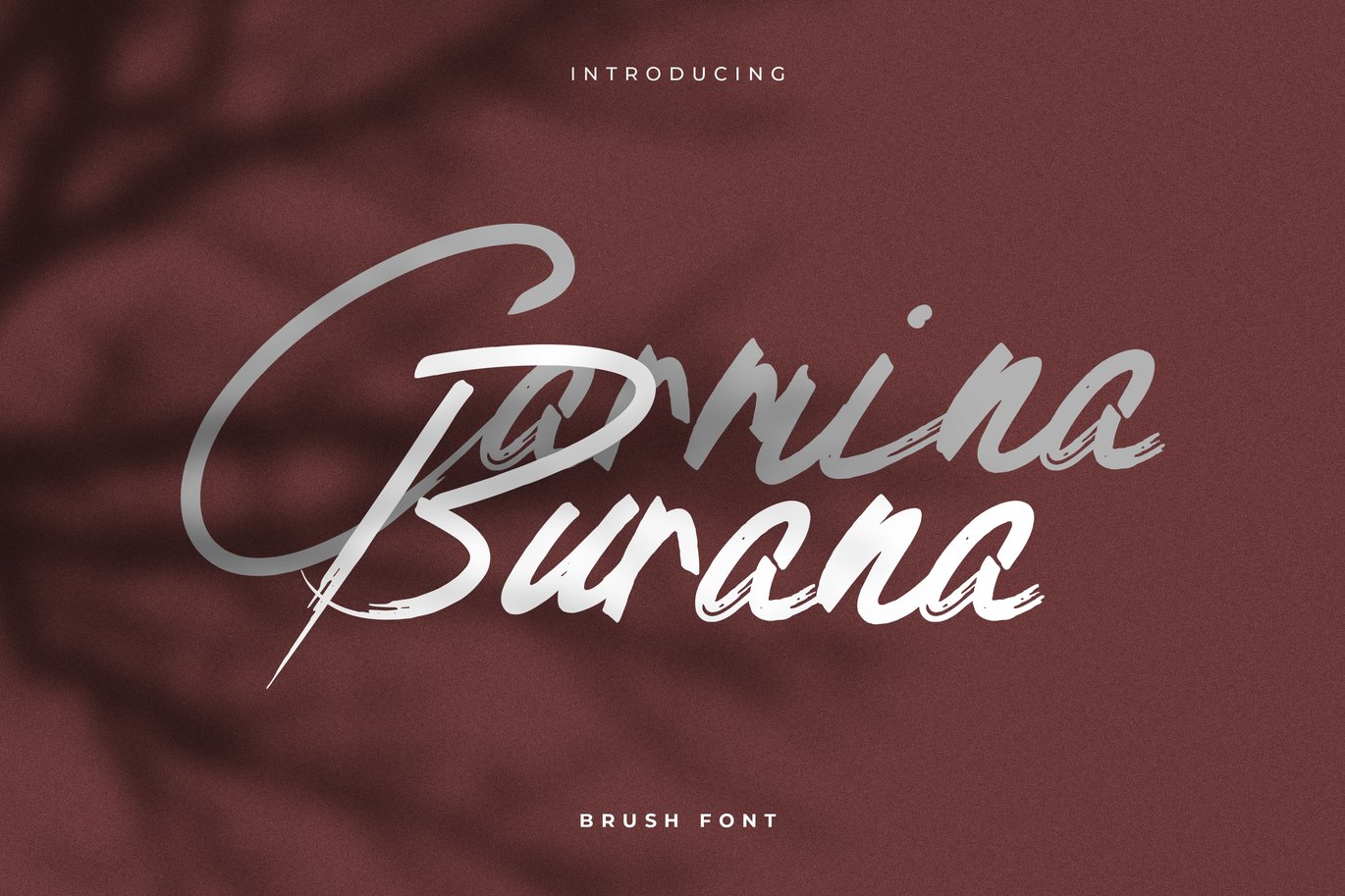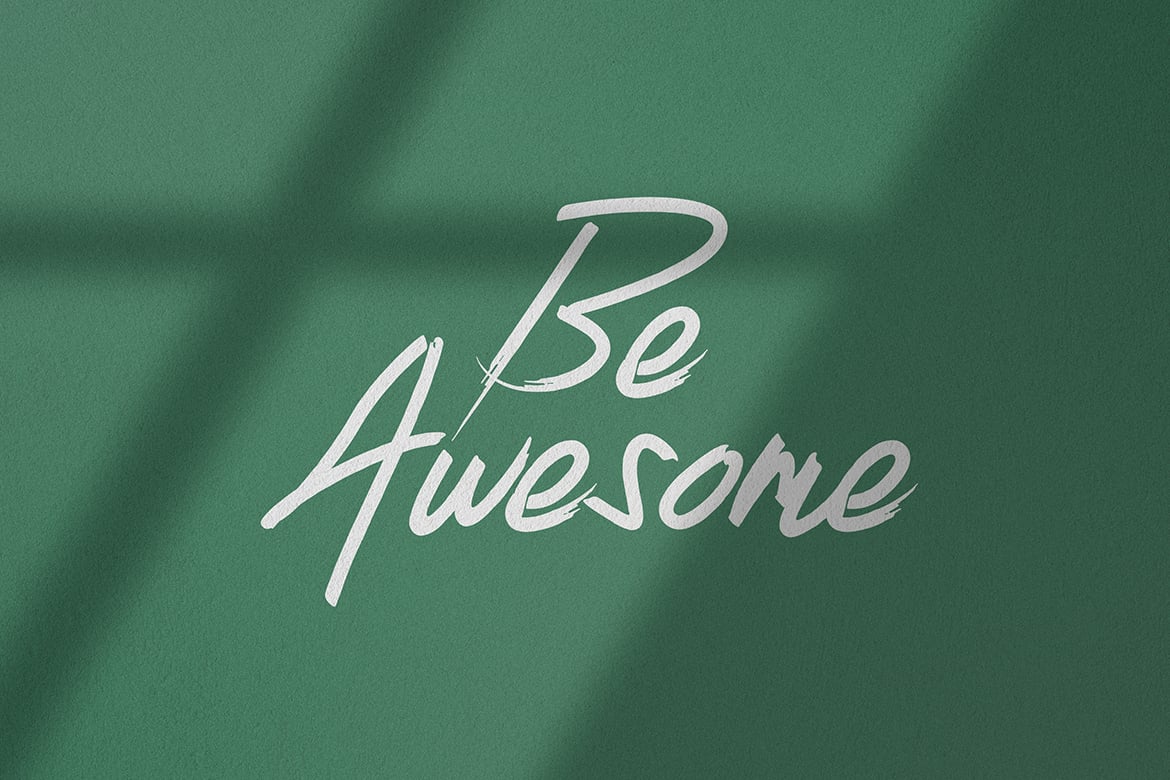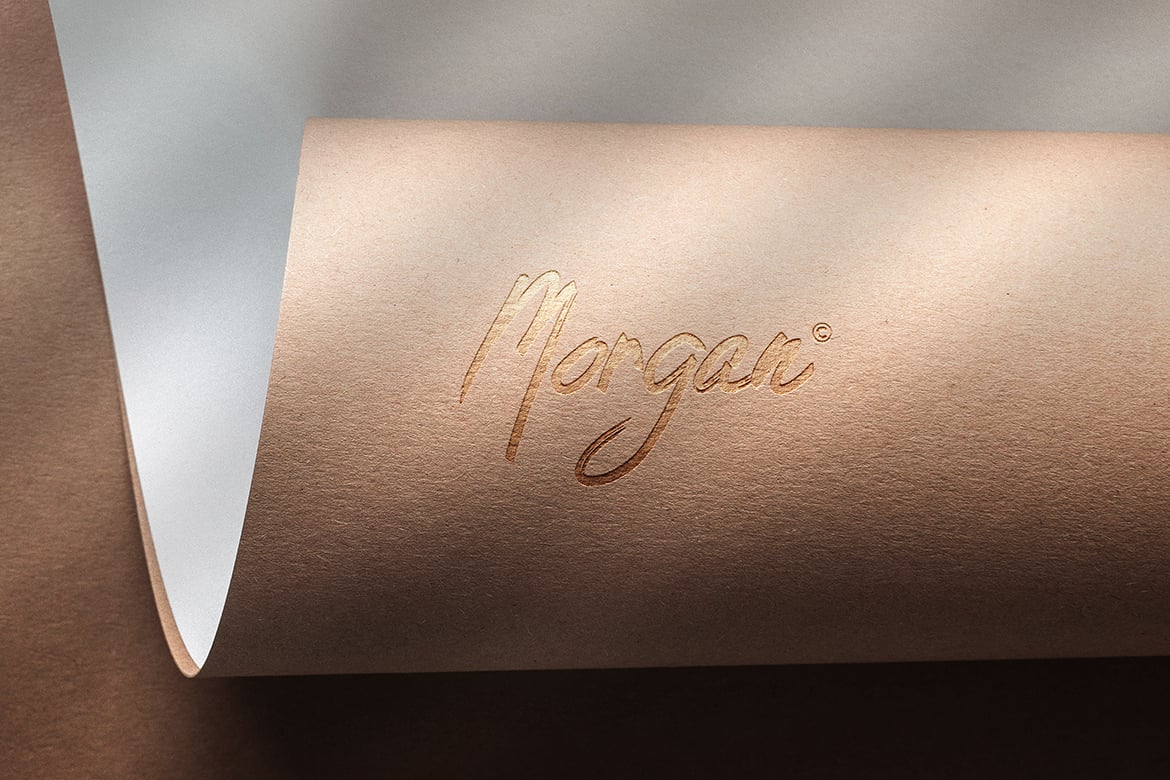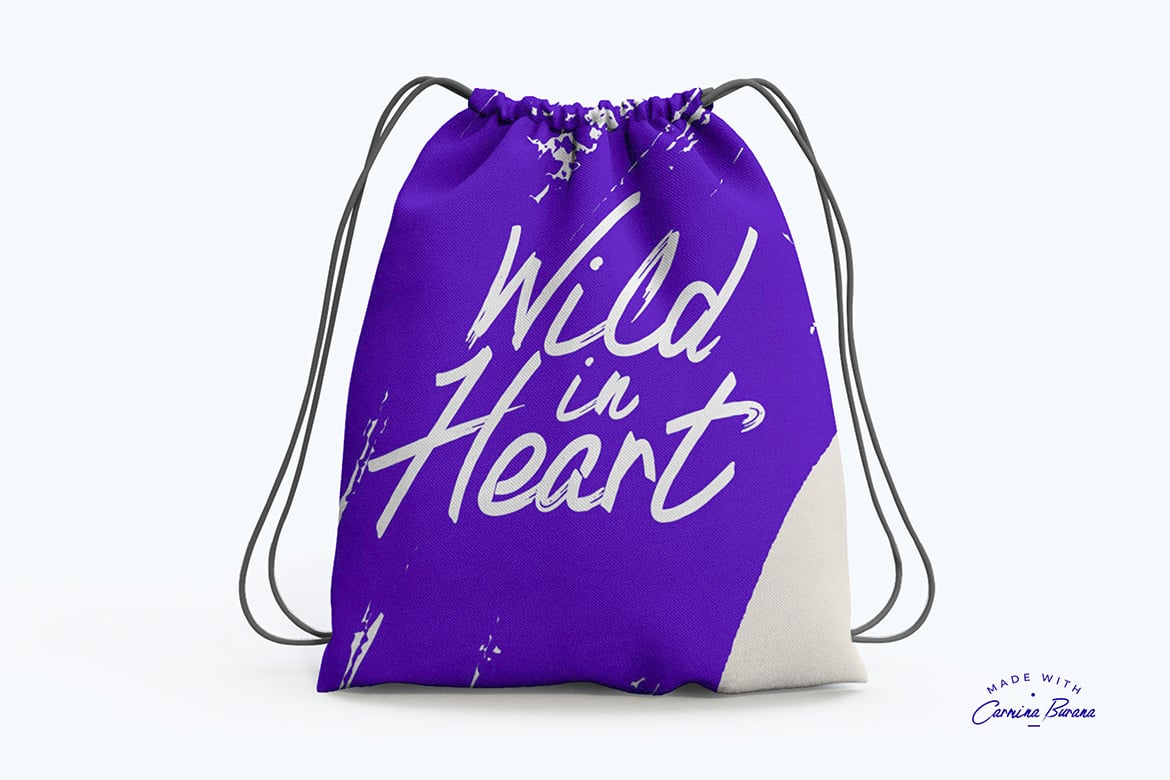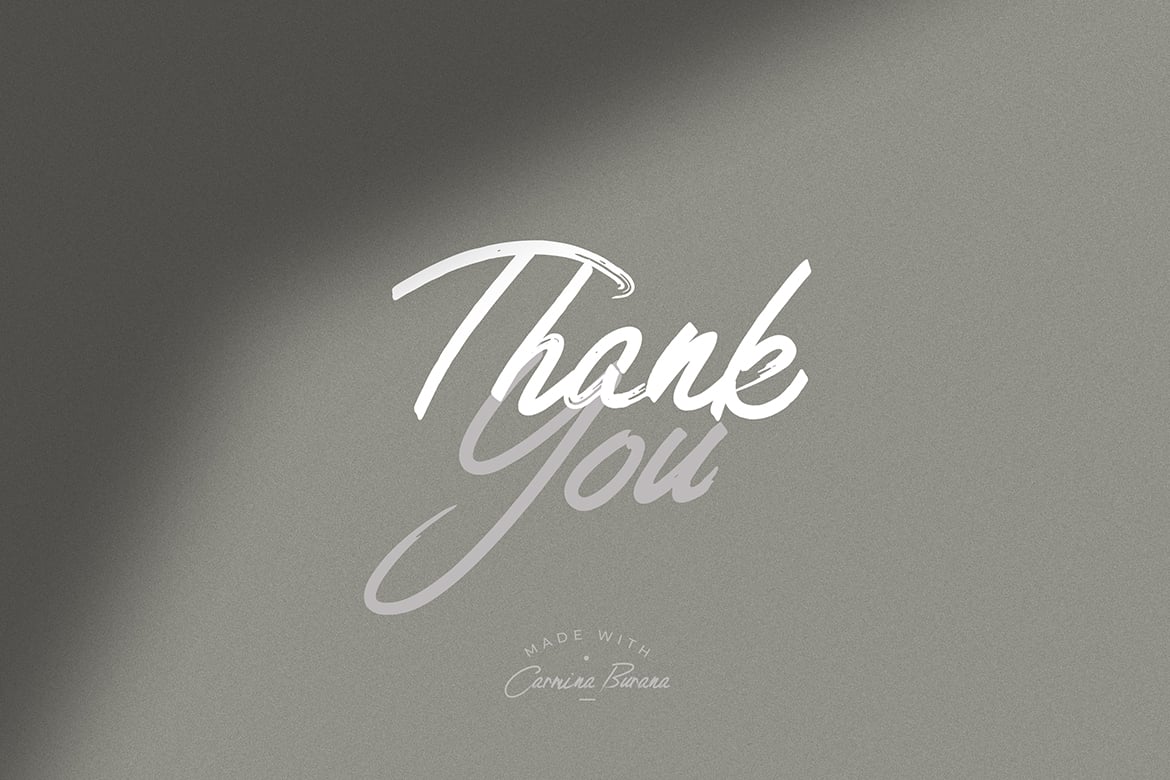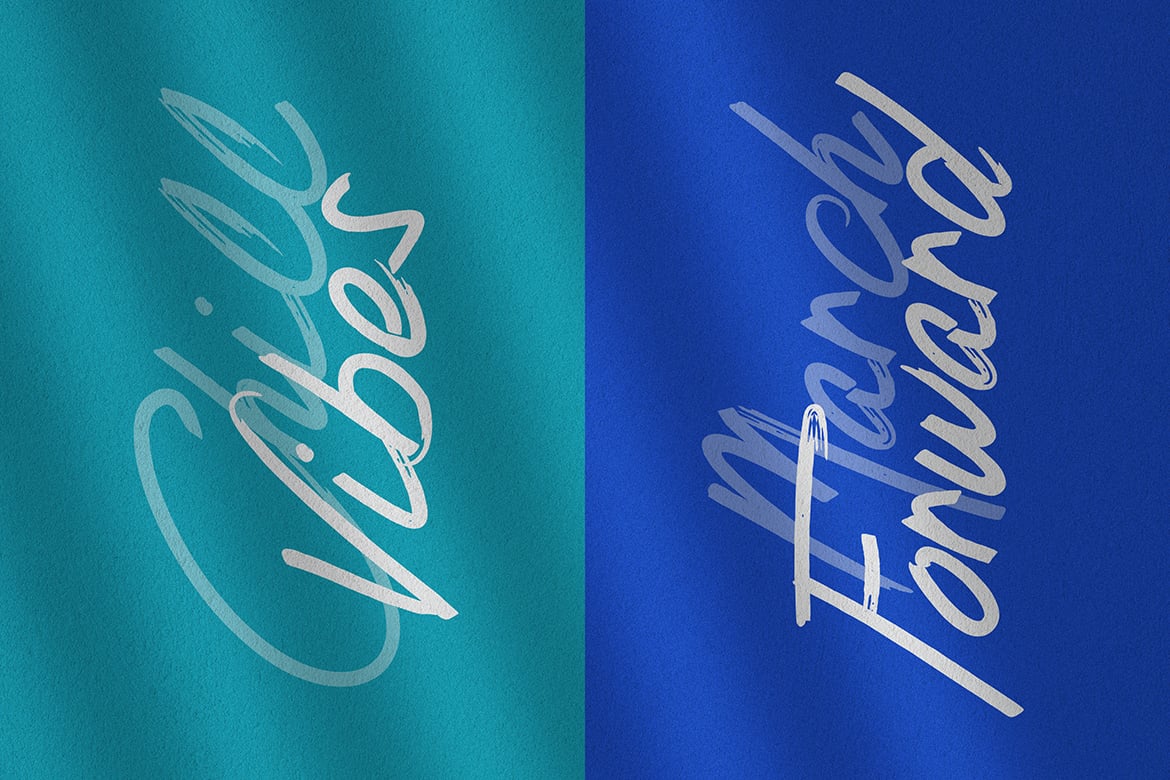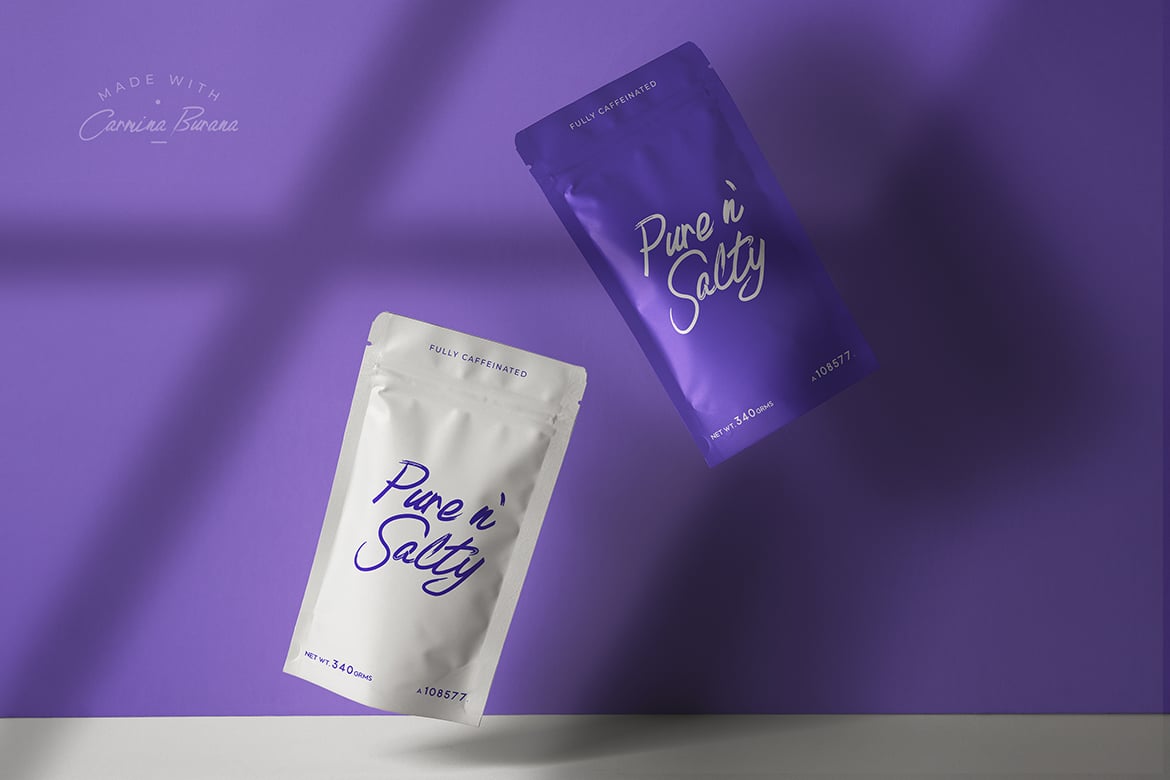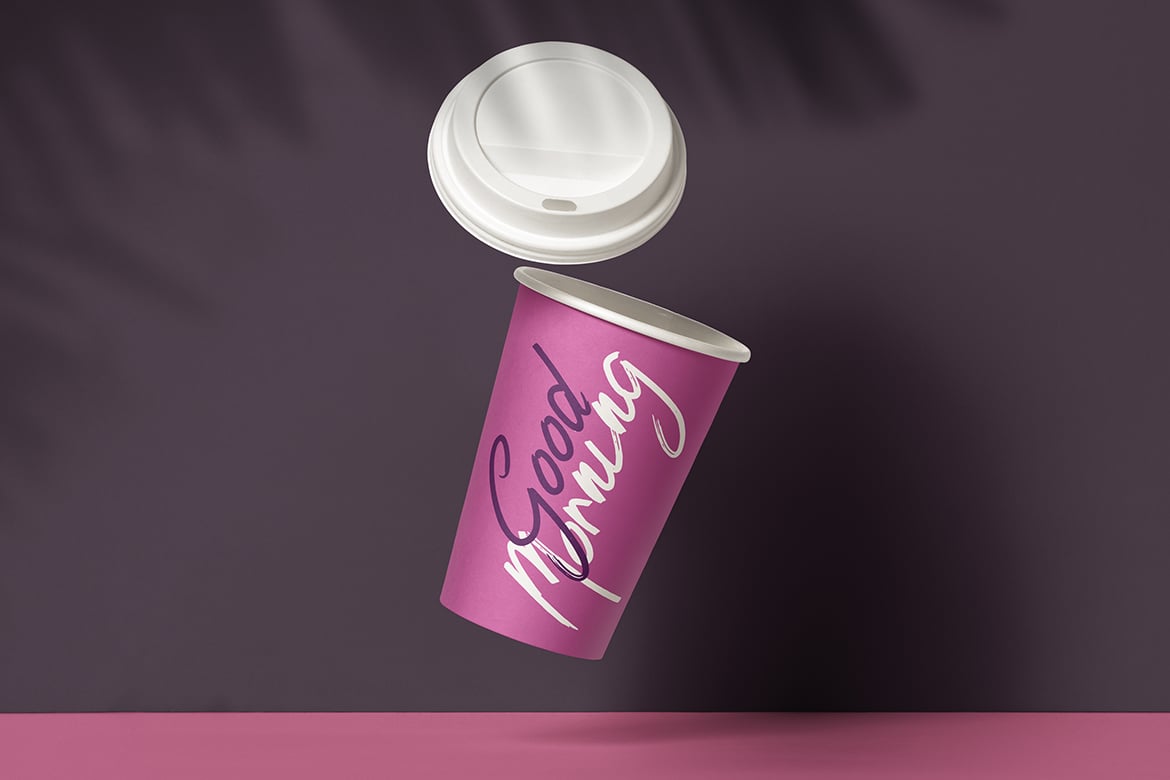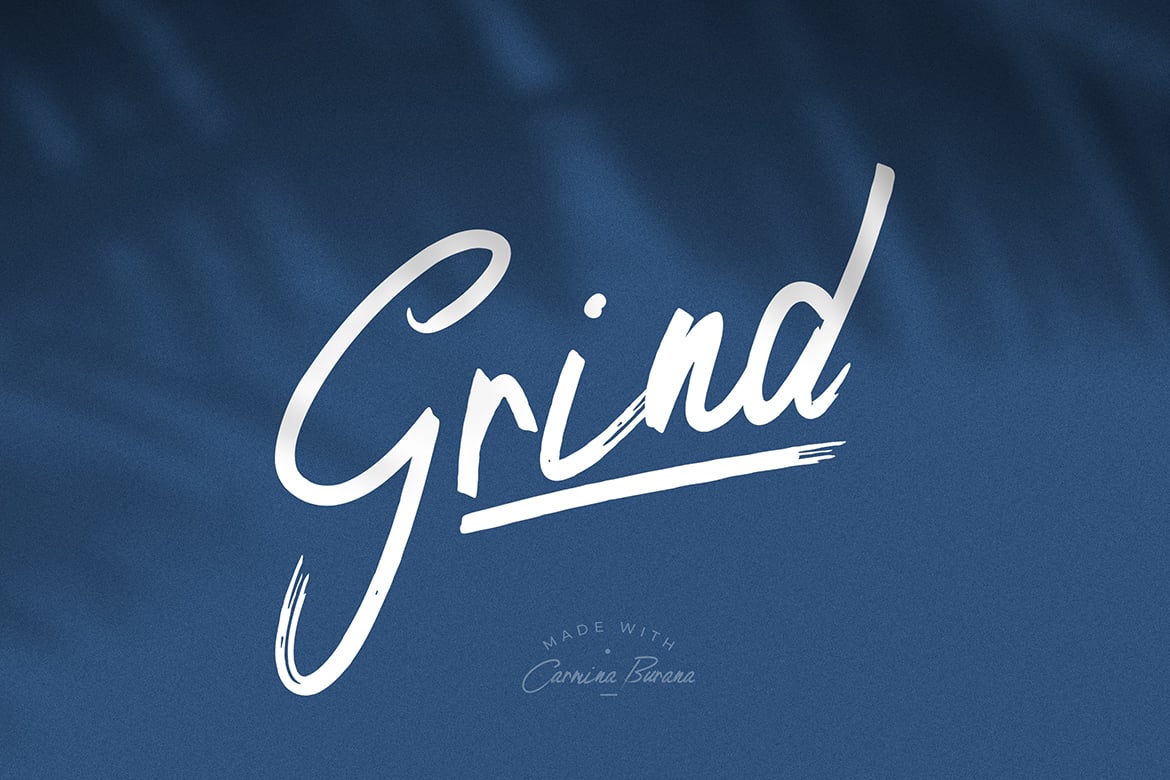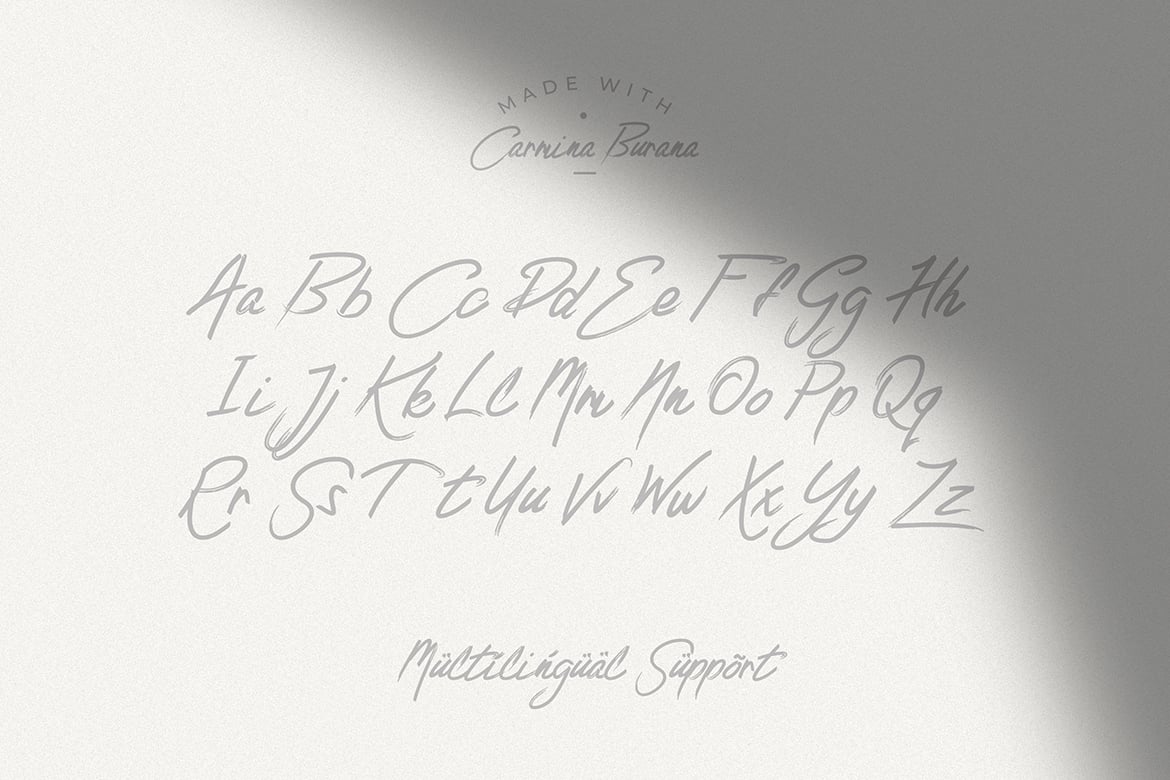
Carmina Burana – Grunge Brush Font
Introducing the Carmina Burana Brush font
An epic handmade brush font with a weathered look and a grunge vibe. It suits perfectly for all kinds of headlines, posters, t-shirt designs, packaging designs, handwritten quotes and so much more. Basically it fits to anything that requires you to add a little grungy and rustic character to your designs.
The font comes with a full set of special characters and also a multilingual support that covers most of the special glyphs.